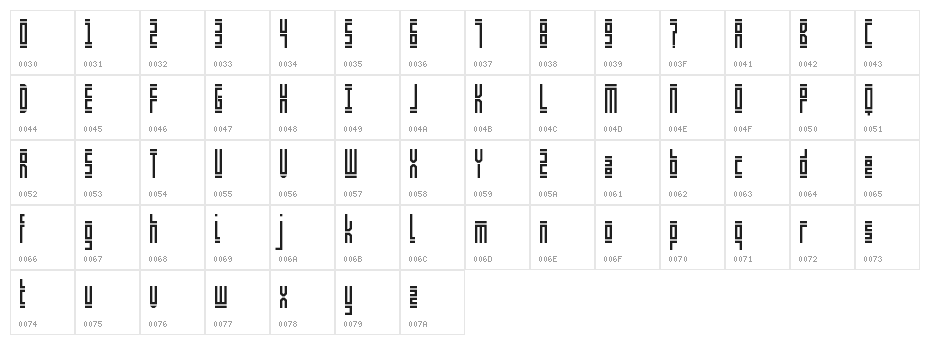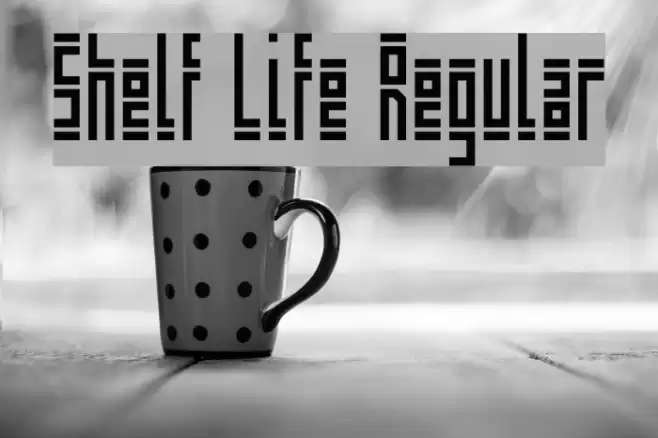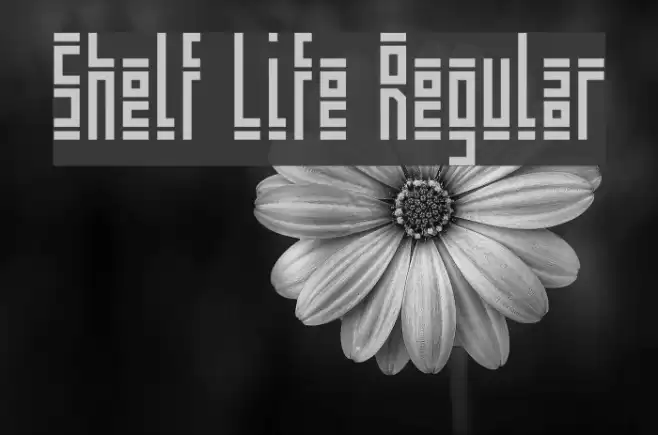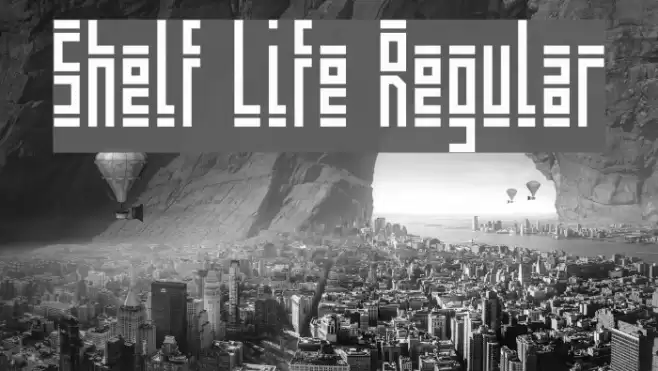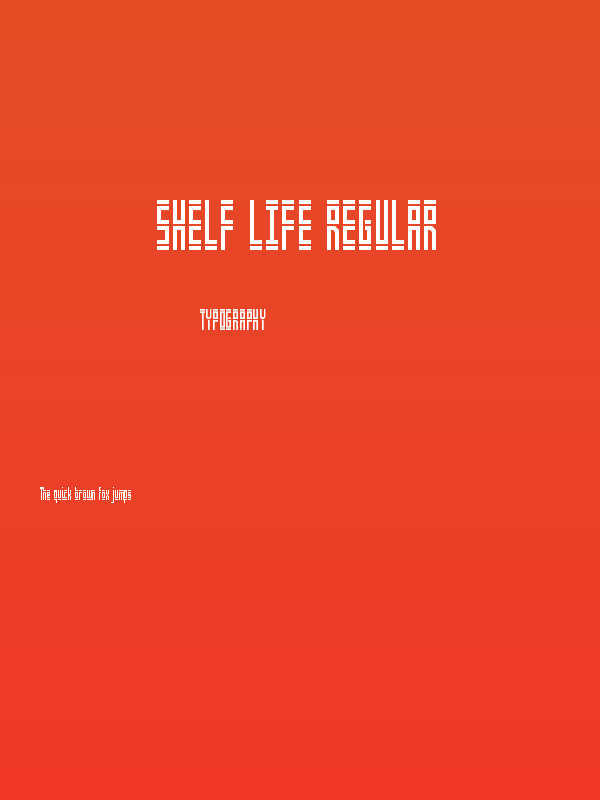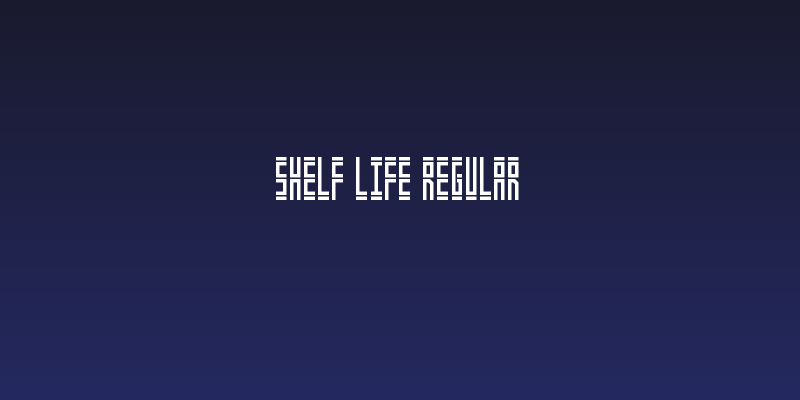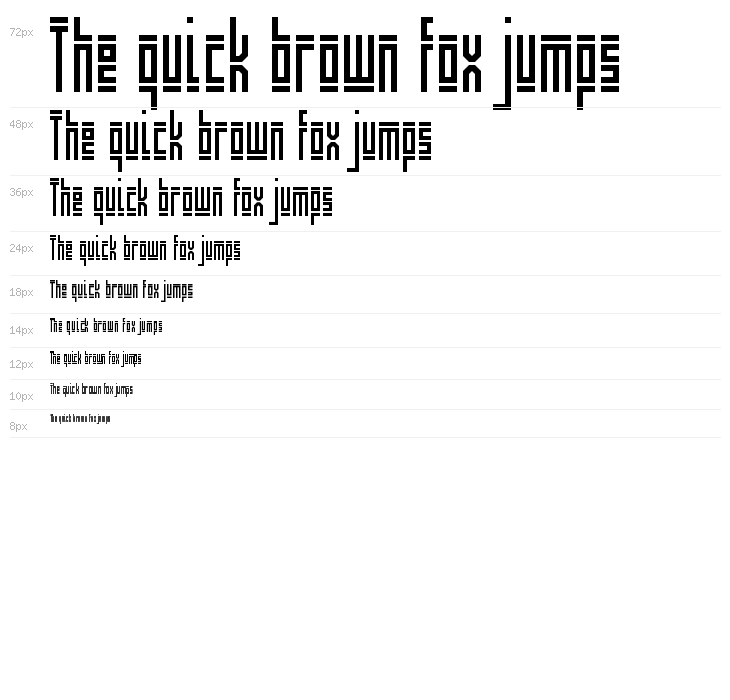
Shelf Life Regular Font
Shelf Life Regular Description
This font features a bold, geometric design with a modern and futuristic aesthetic. The characters are constructed with uniform stroke widths, creating a cohesive and structured appearance. The uppercase and lowercase letters maintain a consistent height, contributing to a monospaced feel. The numerals and special characters are designed to match the overall style, ensuring visual harmony. The font's distinct block-like shapes and sharp angles give it a unique and striking presence, making it ideal for attention-grabbing designs.
| Proposed Projects | Ideal for branding, posters, headlines, and digital interfaces that require a modern and bold aesthetic. |